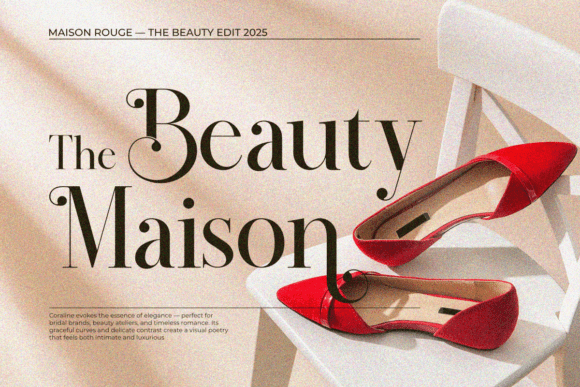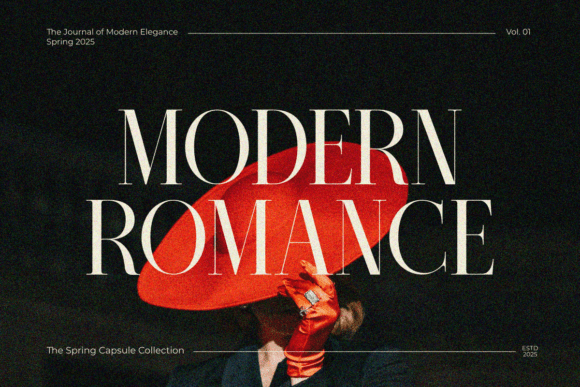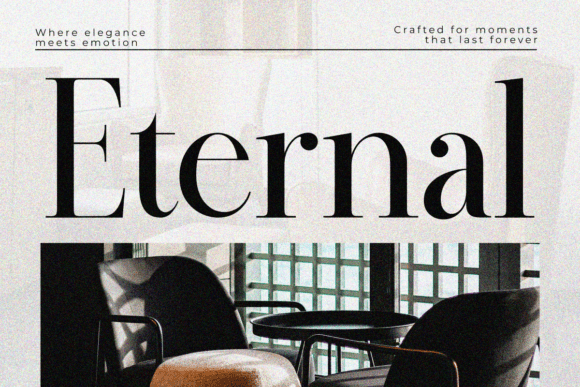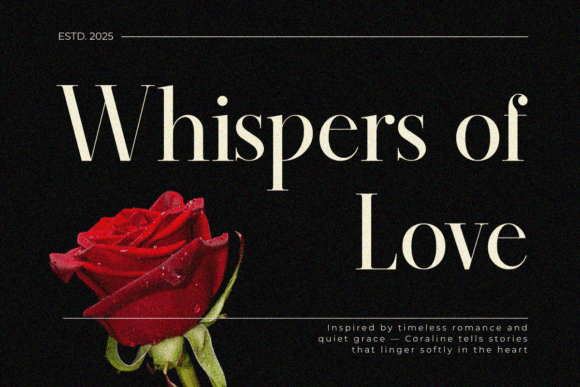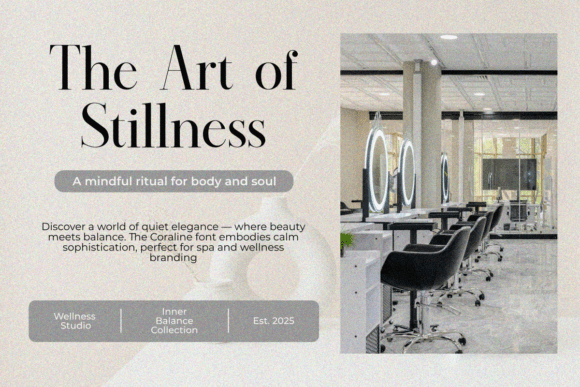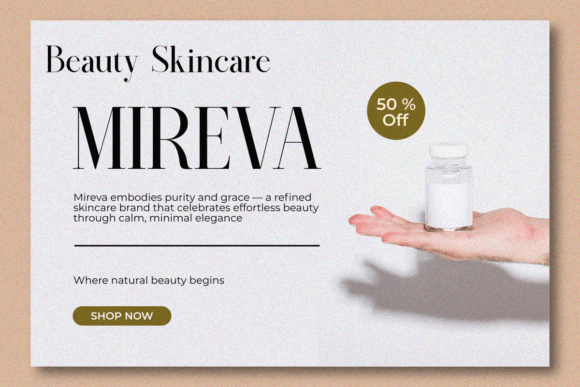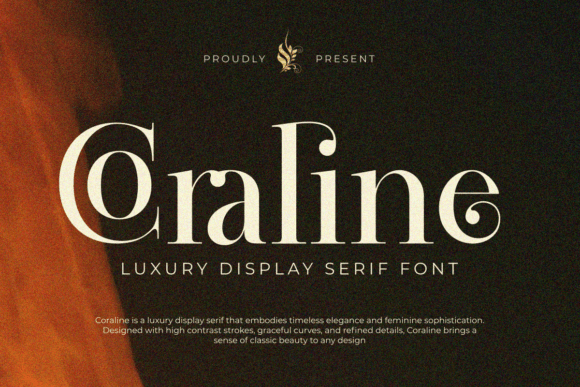
Discover the Elegance of Coraline Font: A Luxury Display Serif for High-End Designs
In the world of typography, few fonts capture the essence of luxury and sophistication as effortlessly as Coraline. This stunning display serif font is designed to bring a touch of timeless elegance and deep, feminine sophistication to high-end designs. Whether you’re working on a luxury brand, a high-fashion editorial, or an exclusive wedding invitation, Coraline is the perfect choice for projects that demand a dramatic, artistic, and flawlessly elegant presence.
Characteristics of Coraline Font
Coraline is characterized by its high-contrast strokes, which give it a distinctive and refined look. The font features exaggerated, graceful curves that add to its luxurious feel, making it stand out in any design. One of the most notable aspects of Coraline is its refined details, particularly visible in the decorative ‘C’ and ‘e’ glyphs. These intricate details contribute to the font’s classic beauty and opulence, setting it apart from more standard typefaces.
Perfect for High-End Design Projects
Coraline is specifically designed for use in high-end design projects where elegance and sophistication are paramount. Its applications are vast, ranging from:
- High-Fashion Branding: Coraline can help luxury fashion brands establish a prestigious and refined identity.
- Editorial Mastheads: Add a touch of elegance to magazine and newspaper mastheads, setting the tone for high-quality content.
- Expensive Cosmetic Labels: Perfect for beauty and cosmetics brands looking to convey luxury and high-end quality.
- Exclusive Wedding Stationery: Make wedding invitations, programs, and other stationery items truly unforgettable with Coraline’s sophisticated charm.
- Logotypes: Create memorable and impactful logos that exude elegance and refinement.
Coraline is PUA-encoded (Private Use Area), which means it offers effortless access to all glyphs, swashes, and alternate characters. This feature allows designers to customize their creations with ease, adding a personal touch to their projects without the need for additional software or complicated workarounds. The inclusion of swashes and alternates enables a high degree of creativity and flexibility, ensuring that each design can be tailored to perfection.
Why Choose Coraline Font?
Choosing Coraline for your design project comes with numerous benefits:
- Timeless Elegance: Coraline’s classic design ensures that your project will remain stylish and relevant for years to come.
- Versatility: Despite its luxurious feel, Coraline is versatile enough to be used in a variety of design contexts.
- Attention to Detail: The font’s intricate details and high-contrast strokes make it perfect for projects where precision and elegance are key.
Coraline font is a luxury display serif that embodies the essence of high-end design. Its elegant and sophisticated appearance, characterized by high-contrast strokes, graceful curves, and refined details, makes it the ideal choice for designers looking to add a touch of luxury to their projects. Whether you’re creating branding, editorial content, cosmetic labels, wedding stationery, or logotypes, Coraline offers the perfect blend of classic beauty and modern versatility. With its PUA encoding for easy access to glyphs and swashes, Coraline is not just a font but a design experience that will elevate your work to new heights of elegance and sophistication.
Incorporate Coraline into your design arsenal and discover a world of limitless creative possibilities where elegance meets luxury.